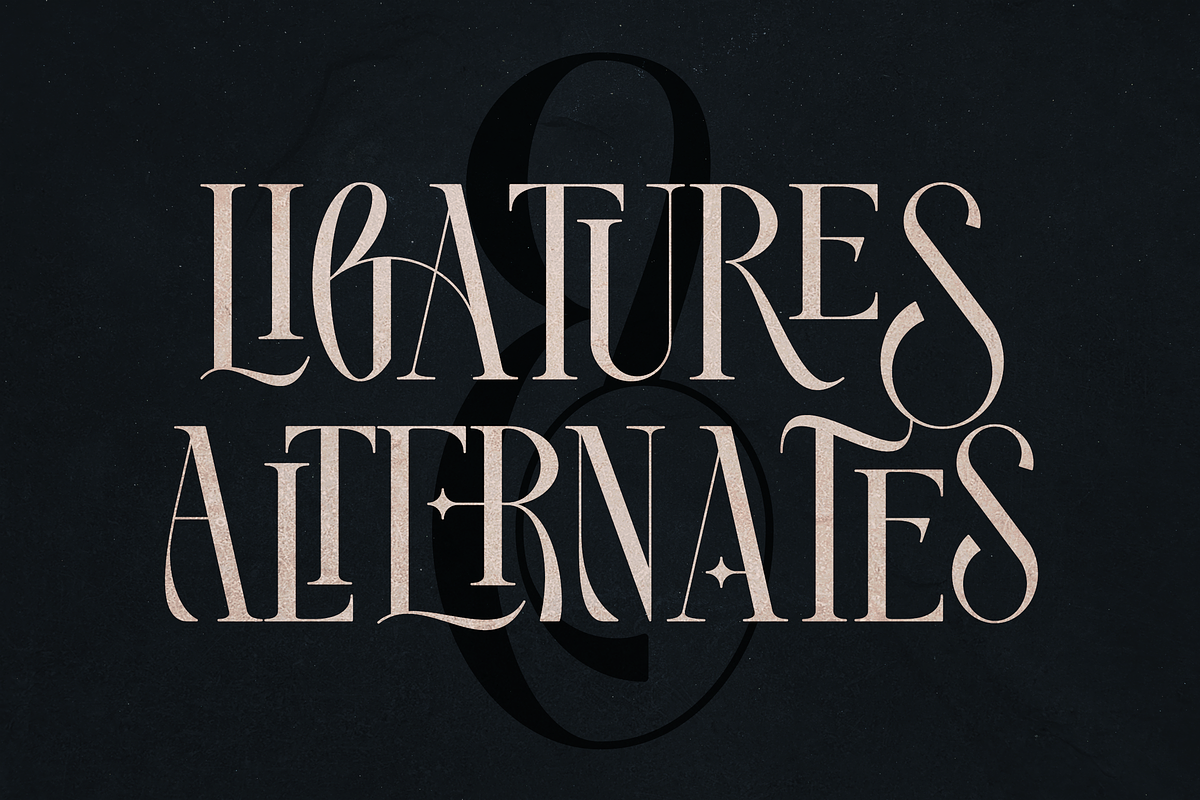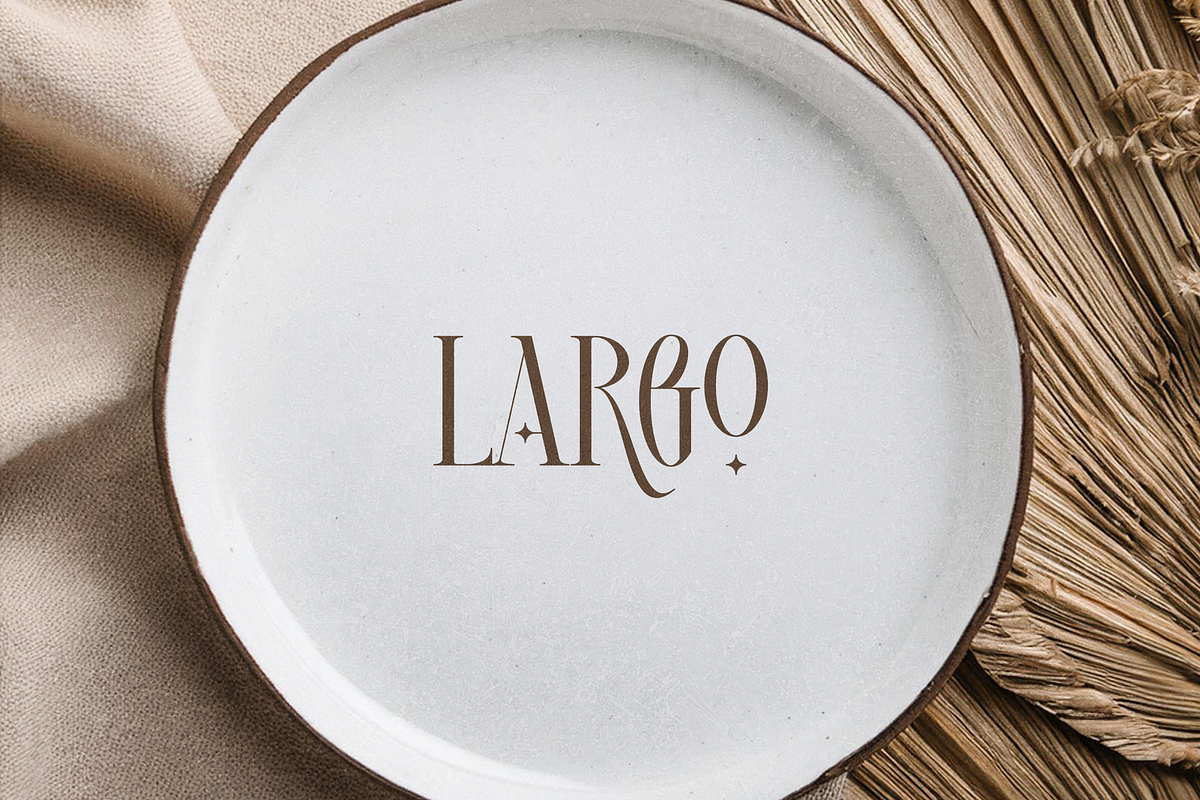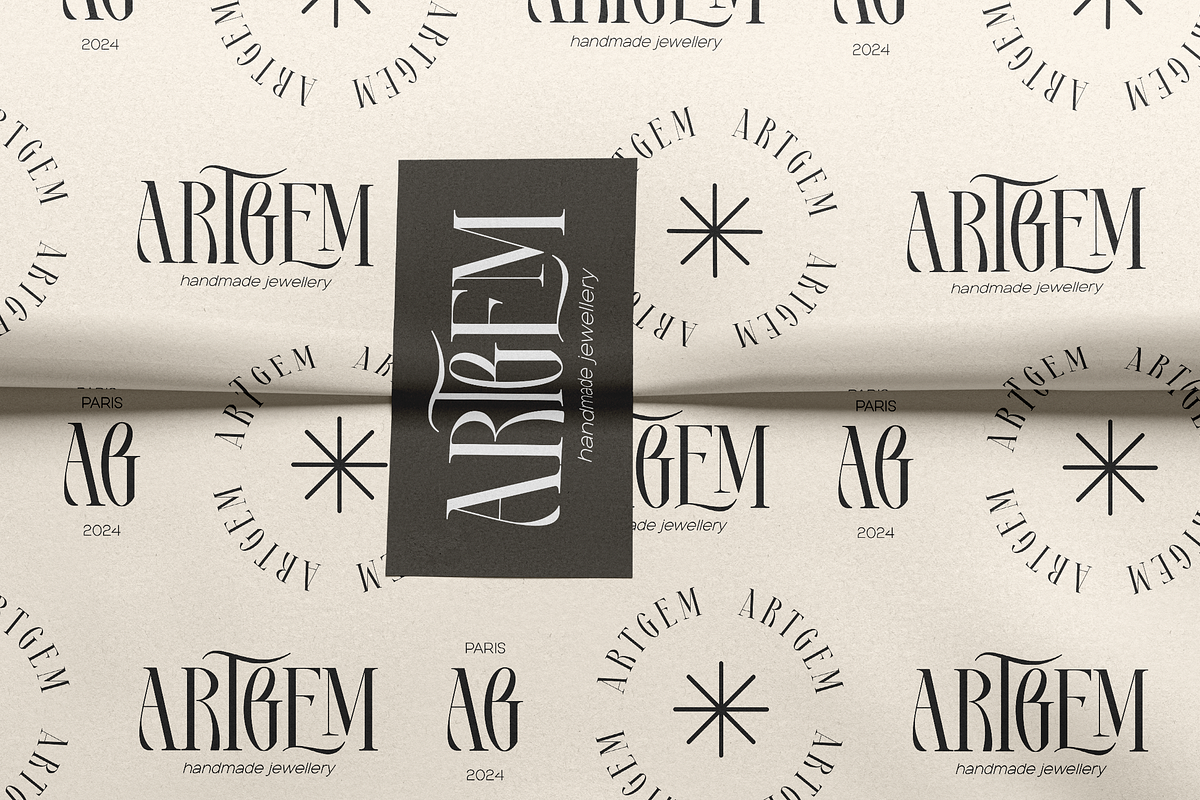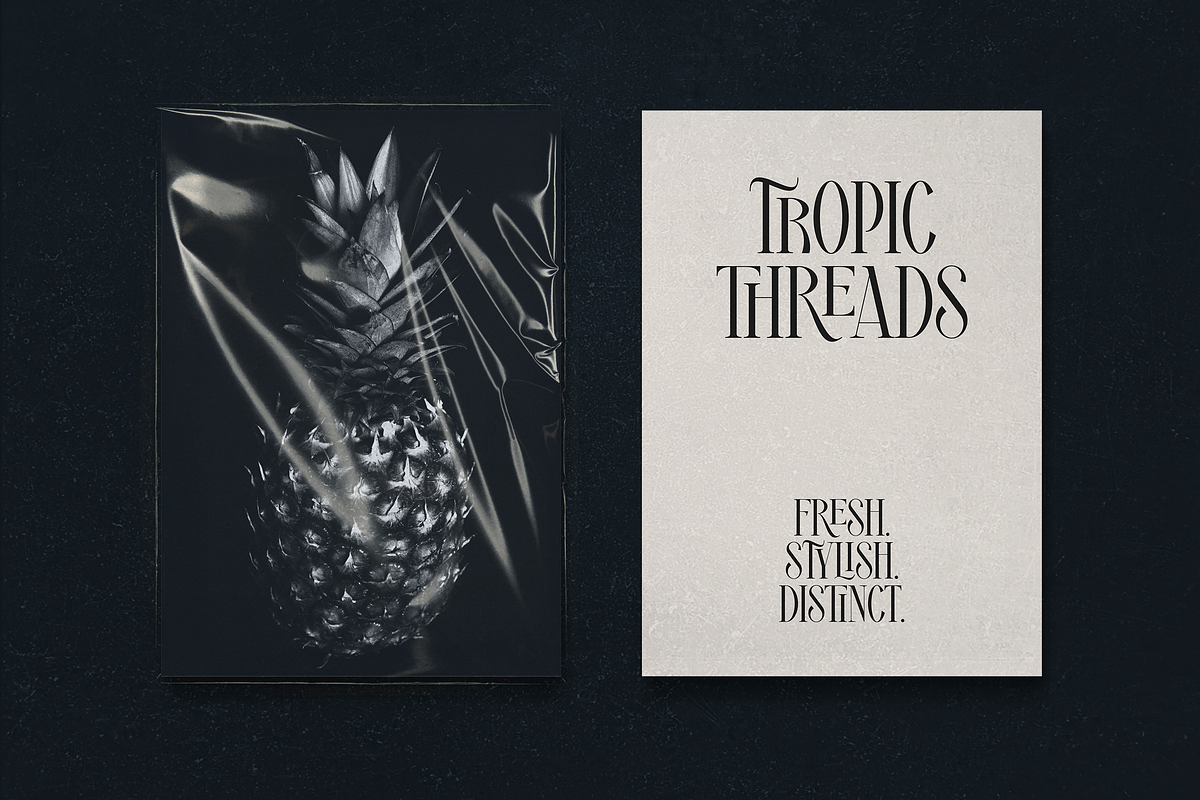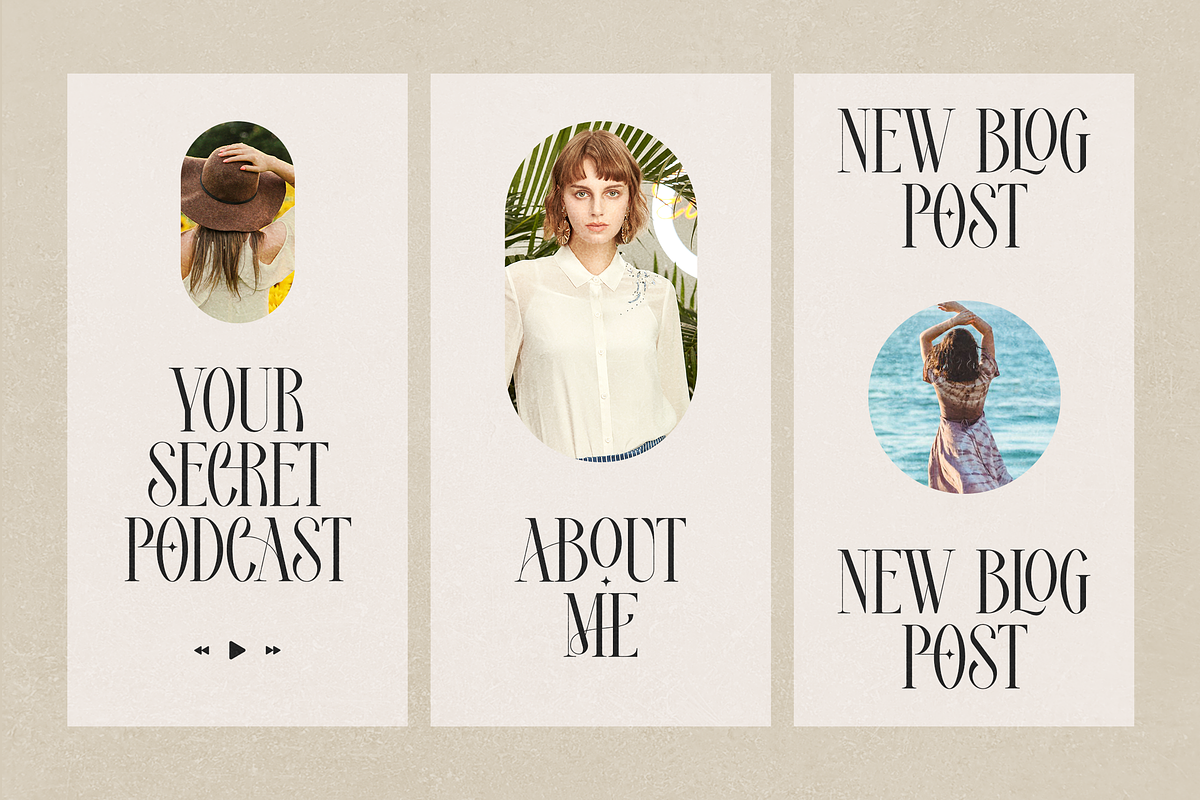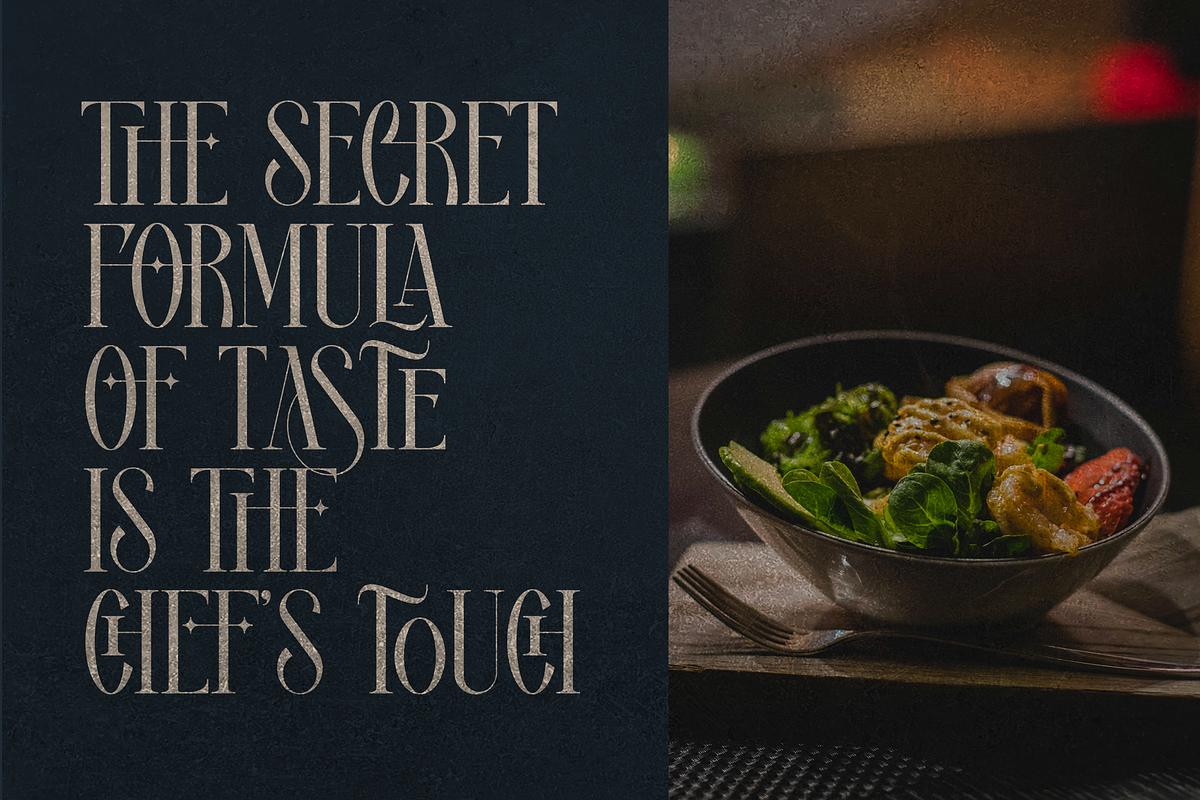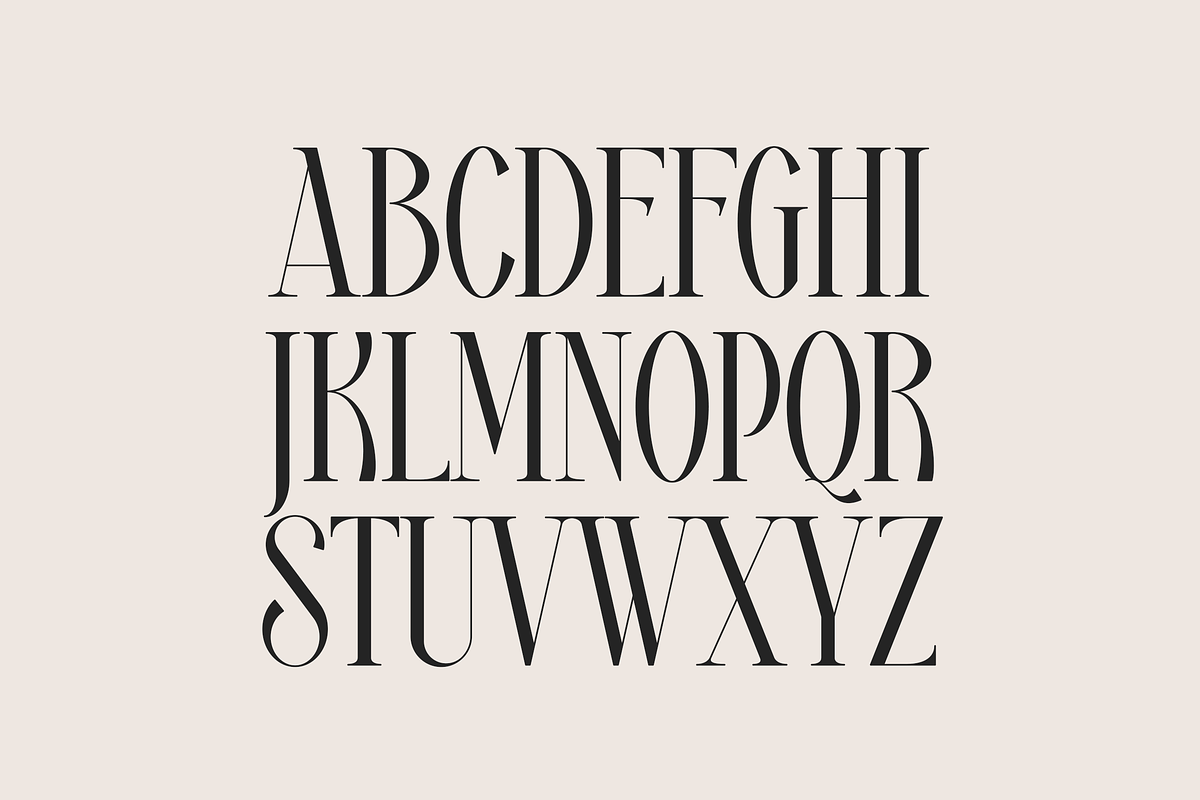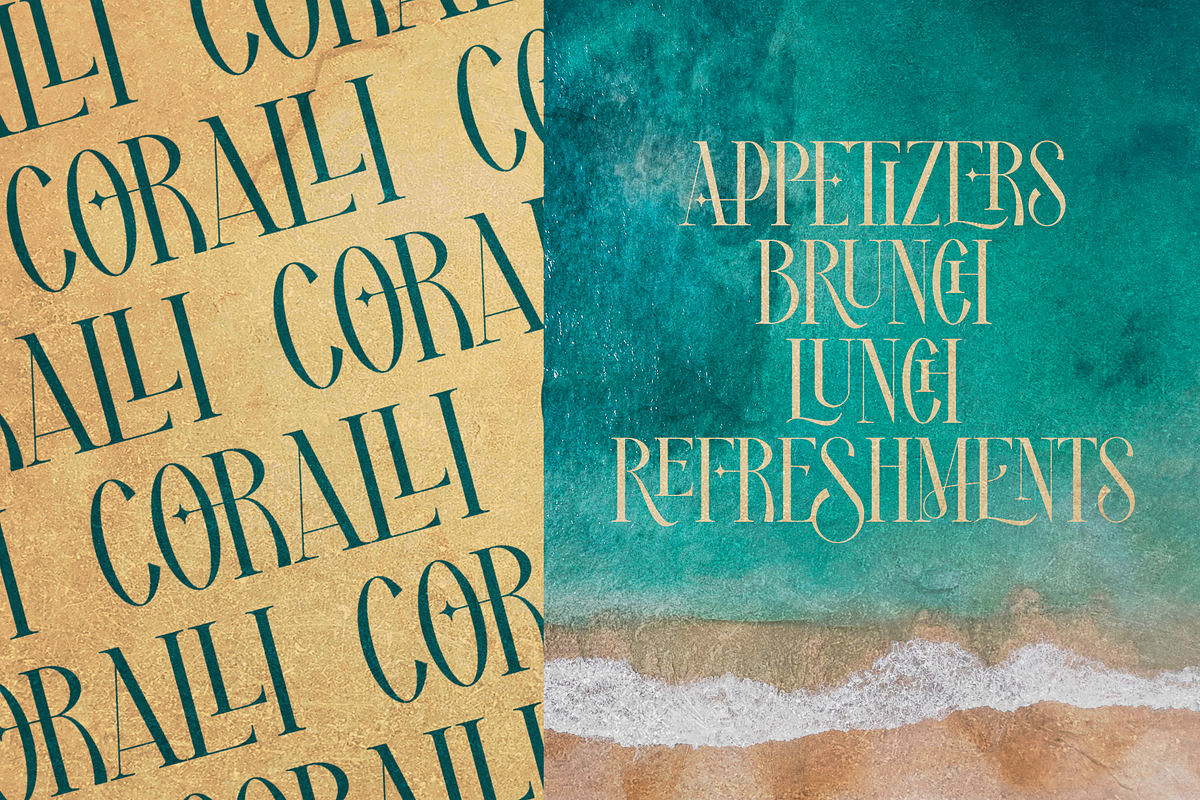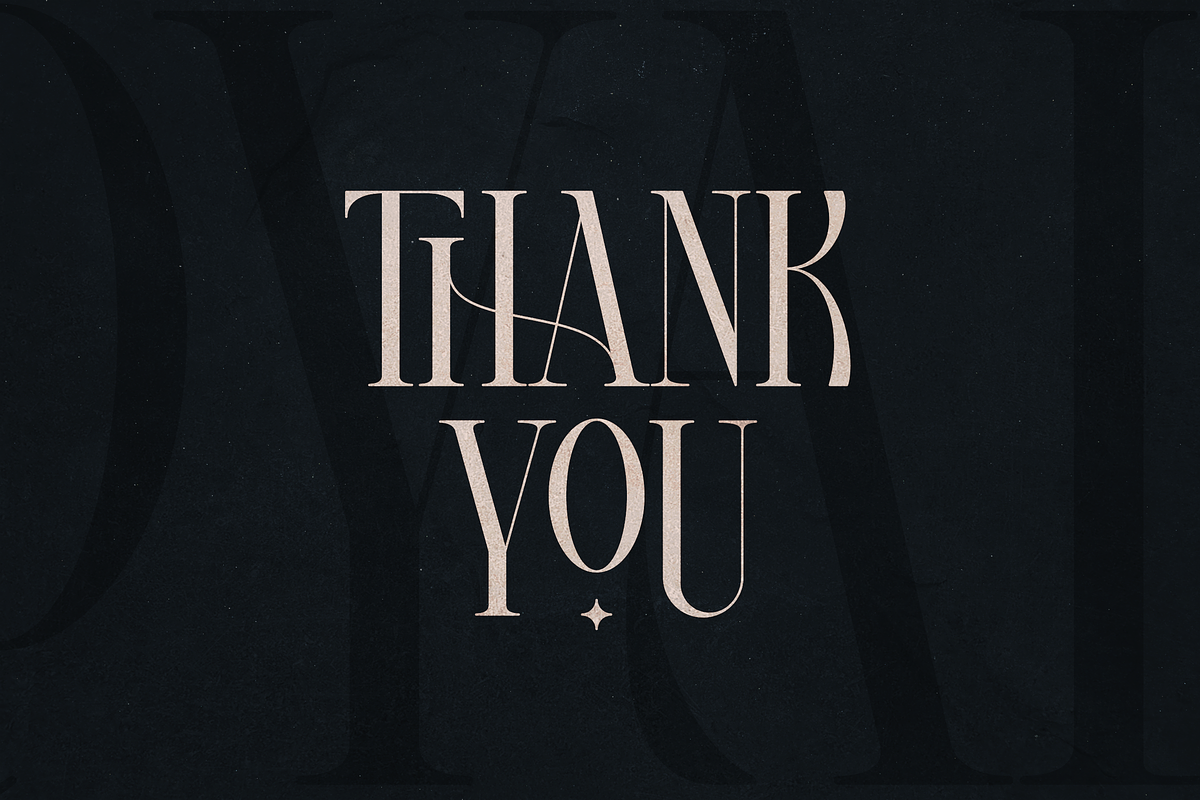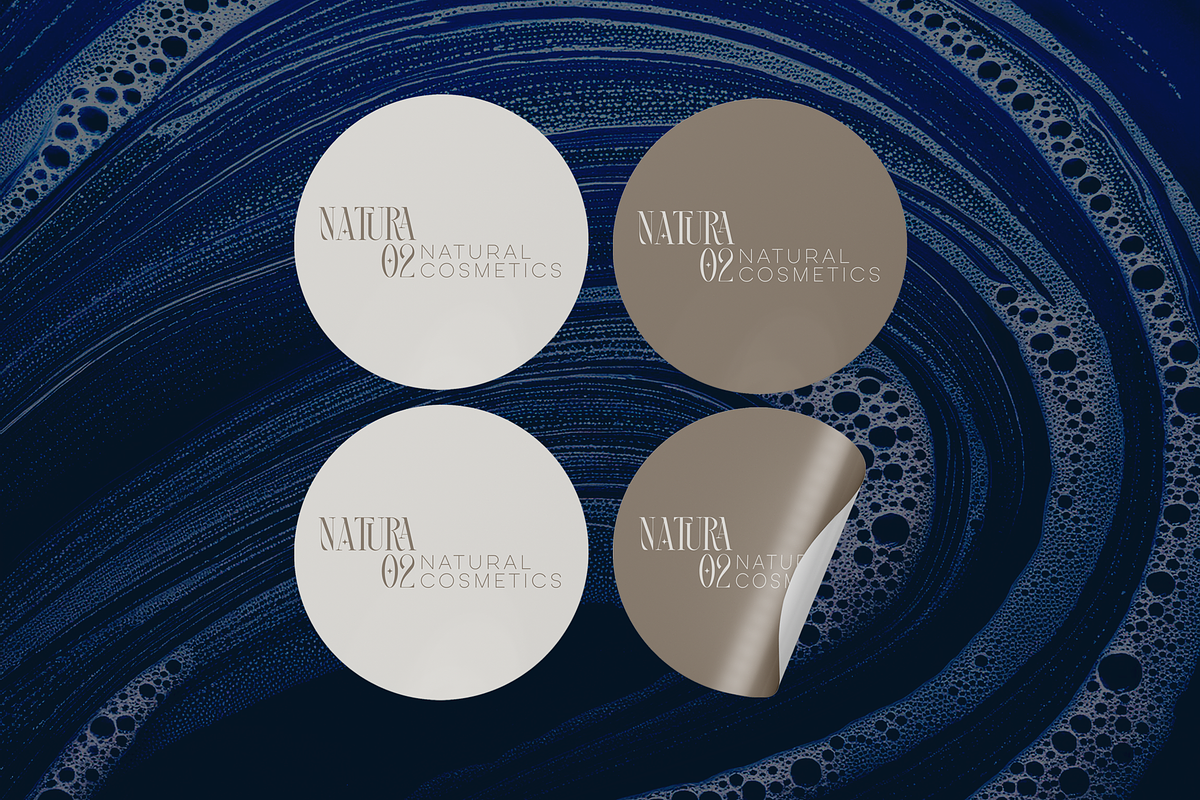
Royal Type - ligature serif font
Discover Royal Type, a sophisticated and elegant long serif font designed to elevate your projects. Supporting 87 languages and featuring over 150 ligature glyphs, Royal Type is perfect for creating stunning logos, captivating headlines, and exquisite wedding invitations. Enhance your designs with its alternate glyphs and experience unparalleled versatility and elegance. Make a statement with Royal Type.